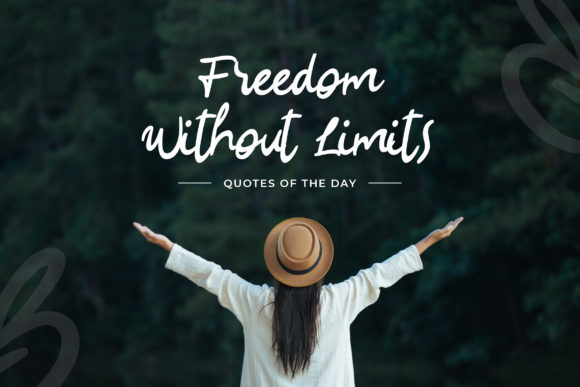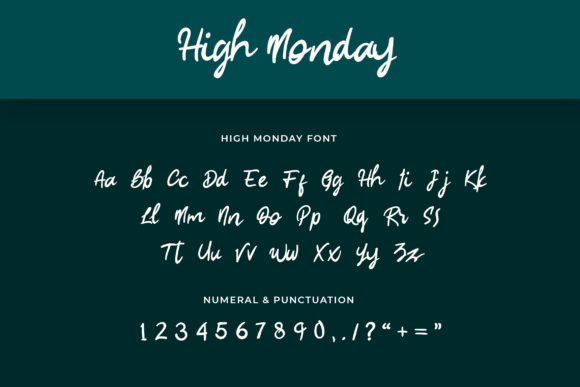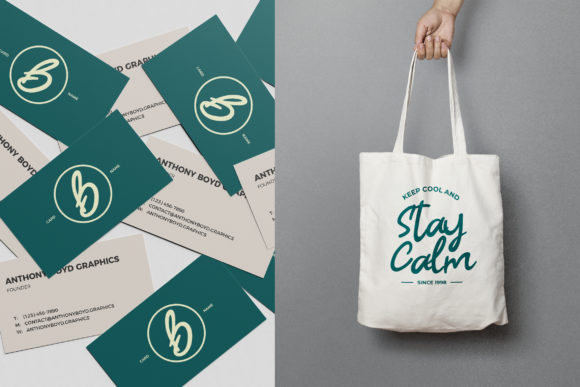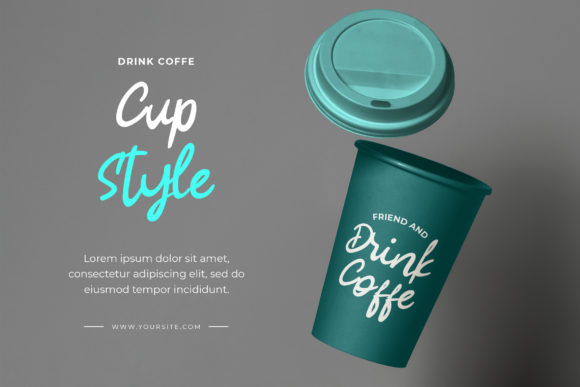
The Joy of High Monday Font: A Designer’s New Best Friend
I still remember the design project that led me to discover High Monday Font. I was working on a greeting card design for a client’s birthday, and I was struggling to find the perfect font that would convey a sense of warmth and friendliness. The client wanted something that would appeal to a wide range of audiences, from kids to adults. After hours of browsing through font libraries, I stumbled upon High Monday Font, and it was love at first sight! ✨
An Honest Review of High Monday Font
- ✨ High Monday Font is a fun and friendly handwritten font that instantly adds a sweet touch to any design.
- ✅ Its versatility makes it perfect for a wide range of applications, from greeting cards to kids’ crafts.
- 💕 The font has a playful, carefree vibe that’s sure to bring a smile to anyone’s face.
- 📚 It’s highly legible, even at smaller font sizes, making it ideal for body text or captions.
While High Monday Font is an excellent choice for many design projects, there are a few things to keep in mind: 🤔
- ⚠️ The font may not be the best choice for formal or professional designs, as it can come across as too playful or childish.
- ⚠️ Some of the glyphs and special characters may not be as intricate or detailed as those in other fonts.
The Story Behind High Monday Font
High Monday Font was designed with one goal in mind: to create a fun, friendly font that would bring joy to designers and their audiences. The font’s creator, a talented type designer, was inspired by the playful, carefree vibe of handwritten fonts and wanted to create a font that would be perfect for a wide range of design projects. 💫
Q: What is High Monday Font?
A: High Monday Font is a fun and friendly handwritten font designed for a wide range of applications, from greeting cards to kids’ crafts.
Q: What are some creative ways to use High Monday Font?
A: The possibilities are endless! Some creative ways to use High Monday Font include designing greeting cards, kids’ crafts, posters, social media graphics, and even packaging materials.